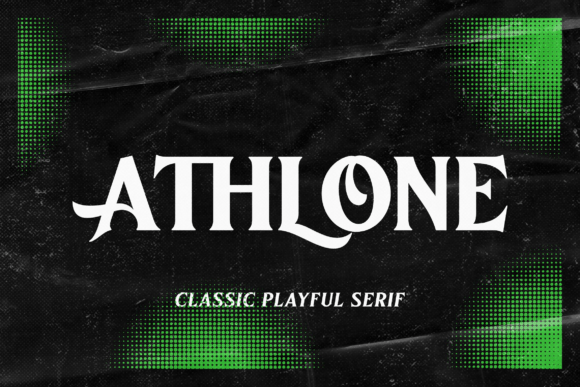
Introducing Athlone Font: A Typographic Masterpiece for Clothing Labels and Beyond
In a world saturated with ordinary fonts, Athlone emerges as an exquisite gem, a testament to the enduring allure of classic typography. Sculpted with meticulous precision, each letterform in this display font exudes elegance and sophistication, capturing the essence of timeless beauty.
Crafted by the masters at Fontdation, Athlone draws inspiration from vintage letterforms, echoing the illustrious past while remaining firmly rooted in modern aesthetics. The result is a font that transcends trends, a timeless treasure that will elevate your designs to new heights.
Beyond its visual appeal, Athlone possesses an unmatched versatility, effortlessly adapting to a myriad of design applications. Whether you seek to craft captivating clothing labels, create logos that leave a lasting impression, or design packaging that exudes luxury, Athlone is your trusted companion.
With its clean lines, sharp edges, and tantalizing curves, Athlone commands attention, transforming ordinary text into captivating statements. Available in both regular and slanted versions, this font offers a wealth of creative possibilities, allowing you to effortlessly express your unique style.
Immerse yourself in the world of Athlone and discover the limitless design opportunities it presents. From titles and headlines that capture the eye to logos and logotypes that exude professionalism, Athlone is the font that turns your creative visions into tangible masterpieces.
Elevate your designs, captivate your audience, and leave an indelible mark with Athlone Font, the ultimate choice for clothing labels and beyond.